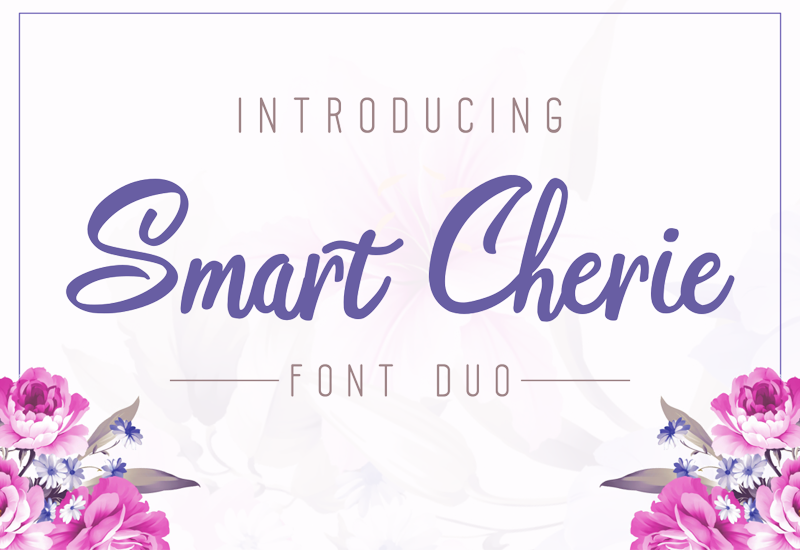
Free download Smart Cherie Sans Font
Preview and download Smart Cherie Sans Font. Created by Pandan Wangi in Basic Sans serif styles with Free for personal use license.
Font name: | Smart Cherie Sans |
Author: | Pandan Wangi |
The Smart Cherie Fonts is just for personal use. But any donation are very appreciated. Paypal account for donation : https://www.paypal.me/satupandanwangi If you want use for commercial use and pro version, please visit this link : https://www.creativefabrica.com/product/smart-cherie-duo/ Sweet, delicious and incredibly charming: Fall in love with the Smart Cherie Duo, a striking mix of two unique fonts! It�s perfect for magazines, business cards, watermarks, invitations, packaging, t-shirts, and all other designs that require beautiful and soft elements. Alternative choices of characters from 14 Swash to Uppercase. |